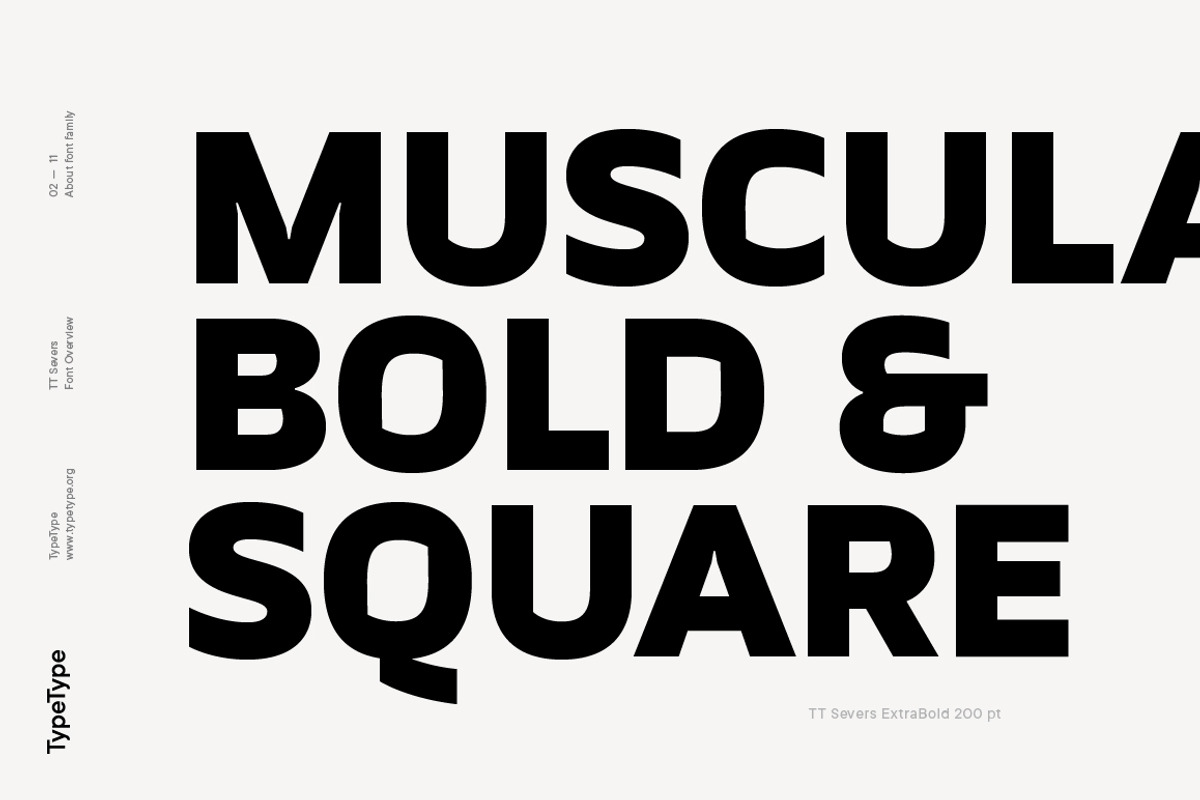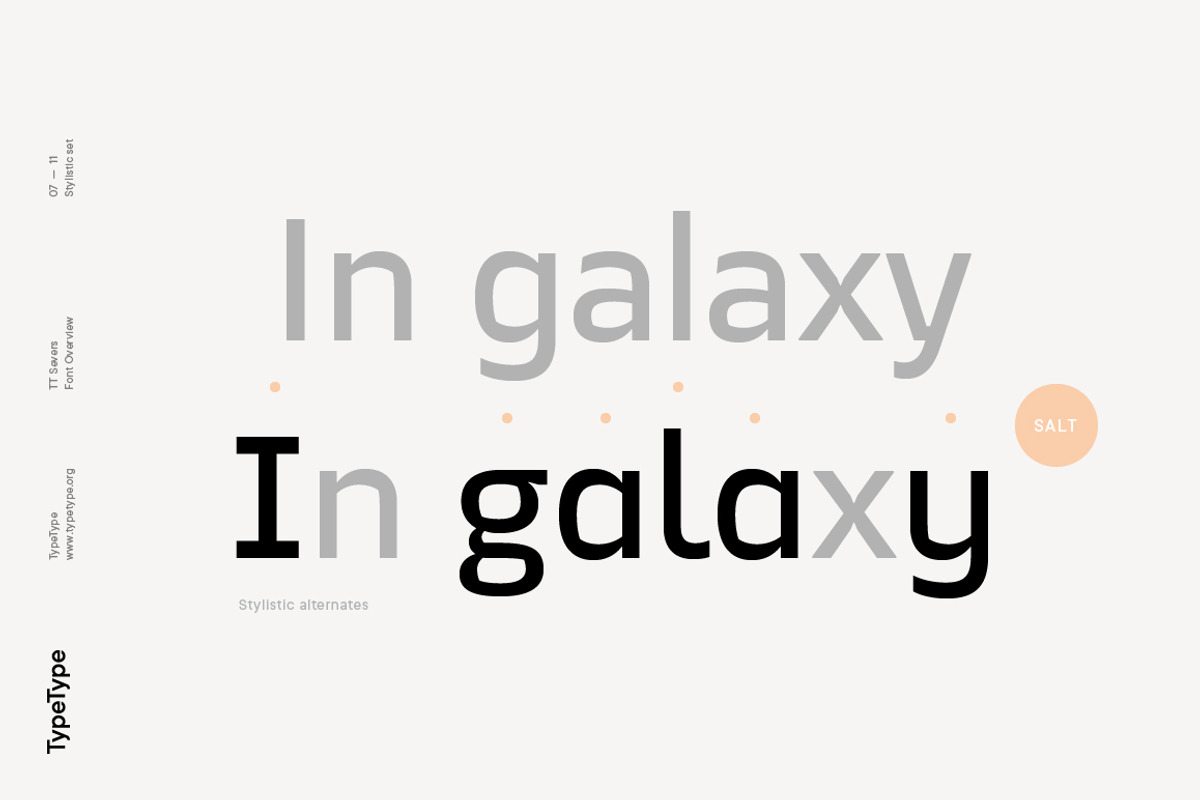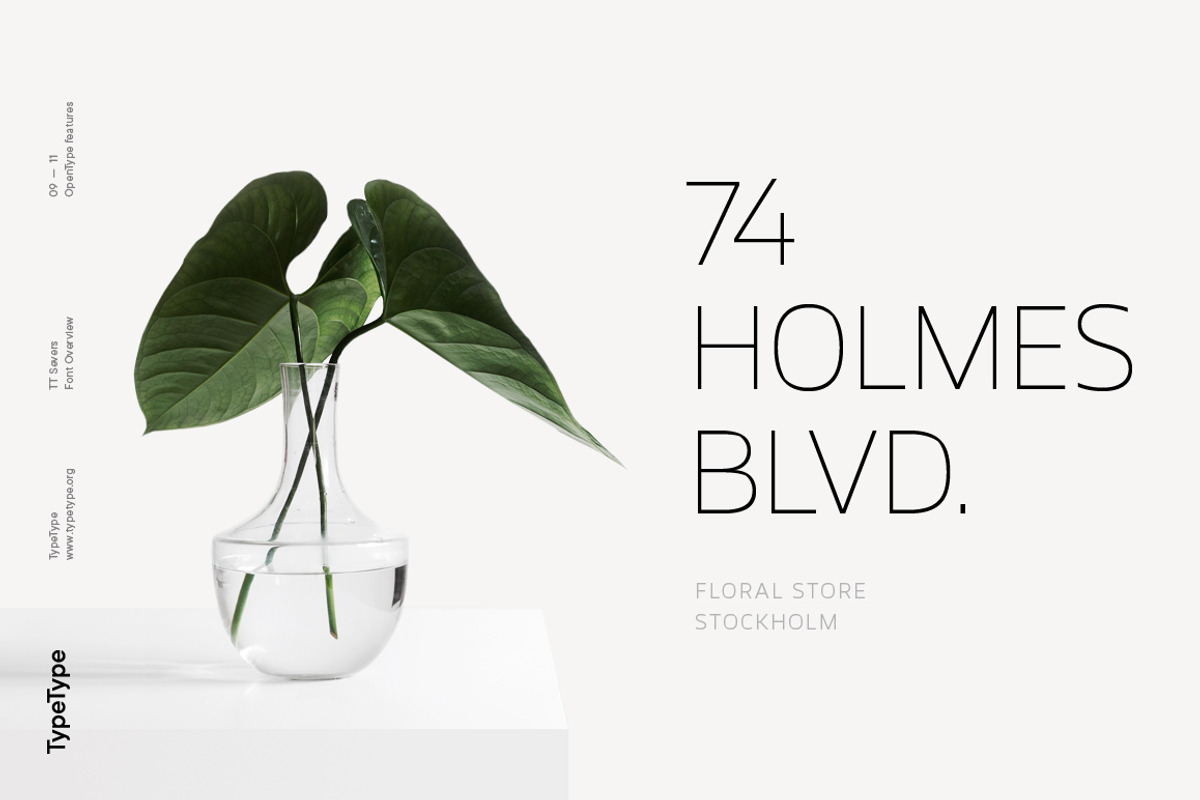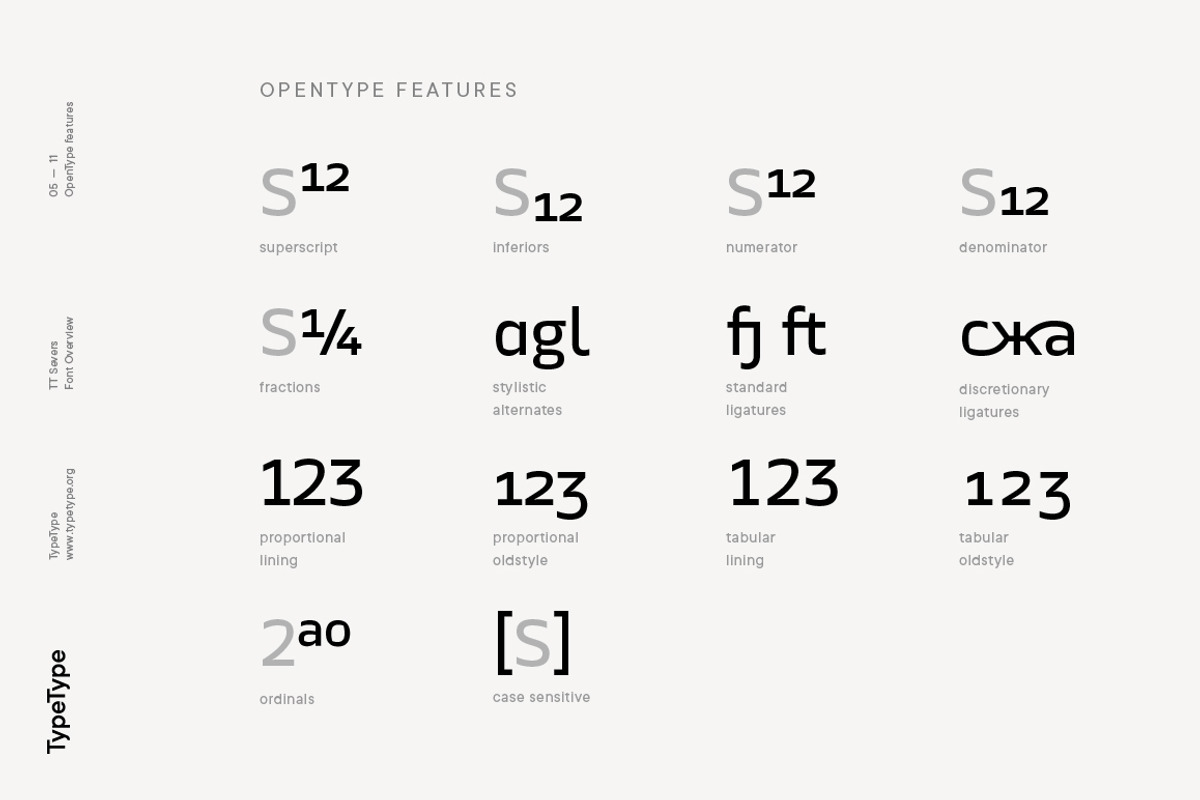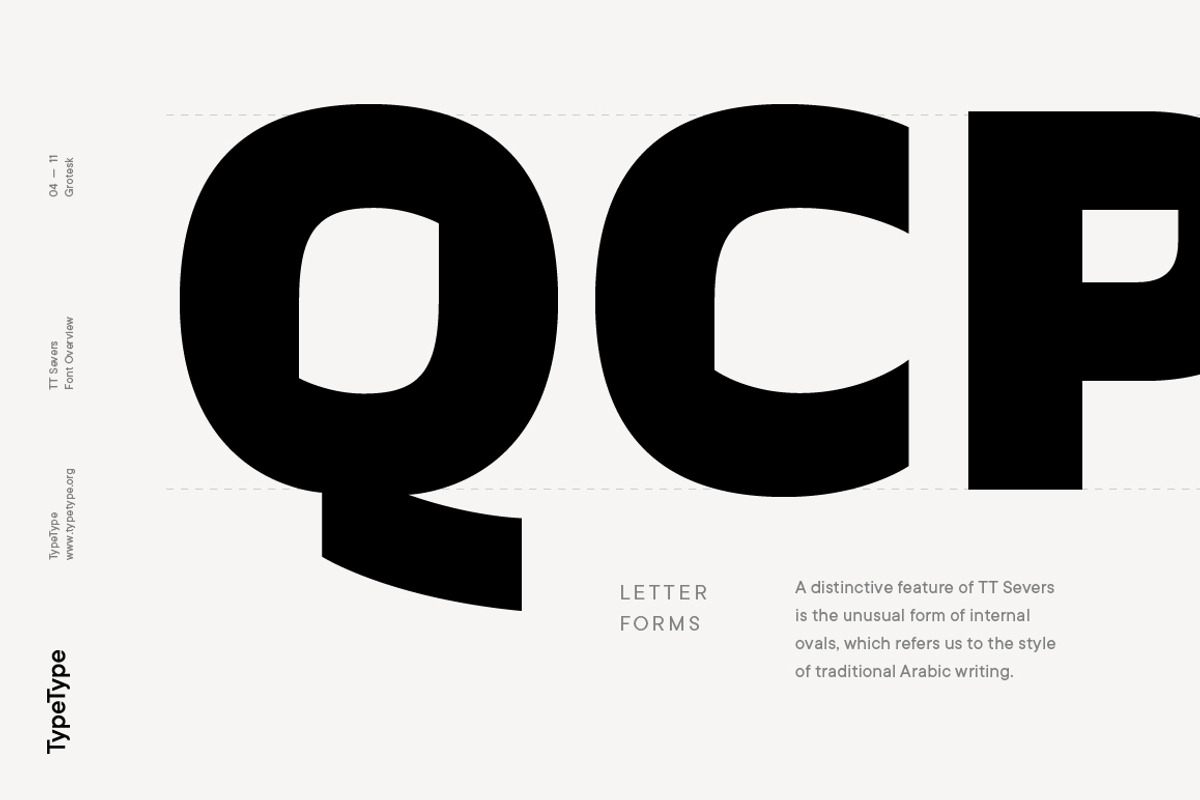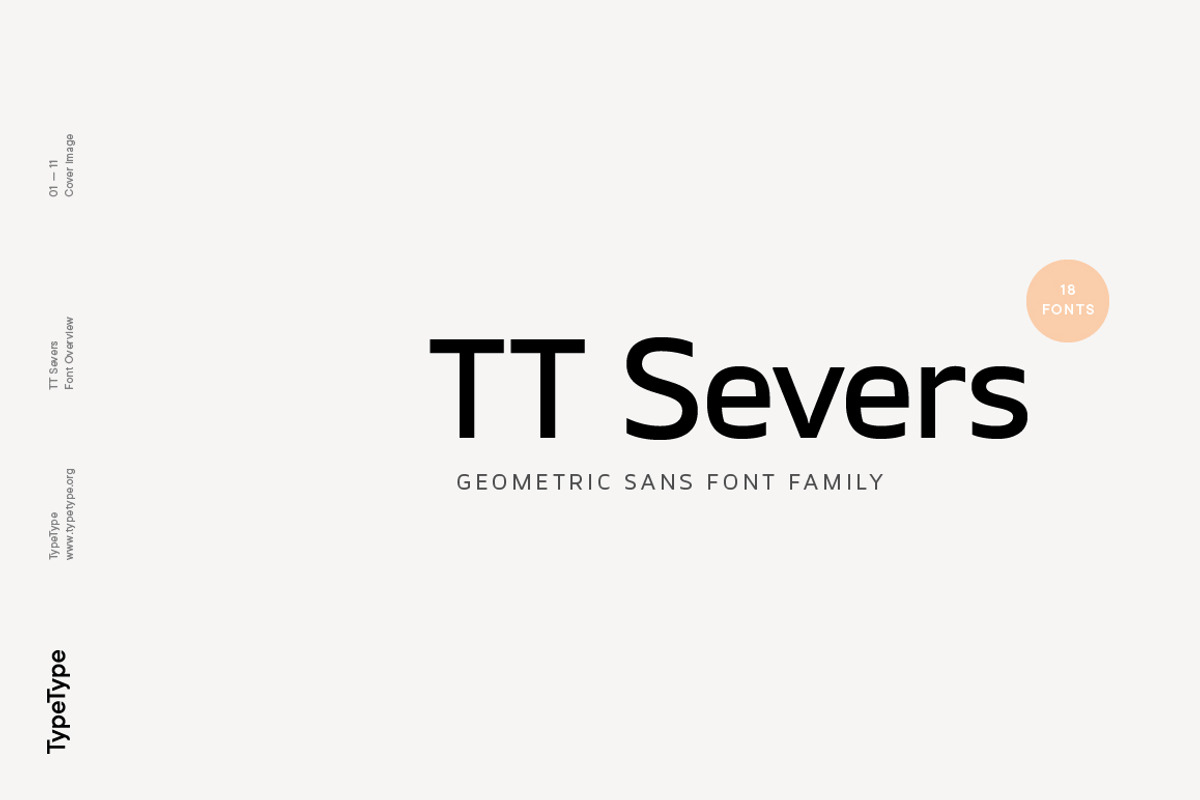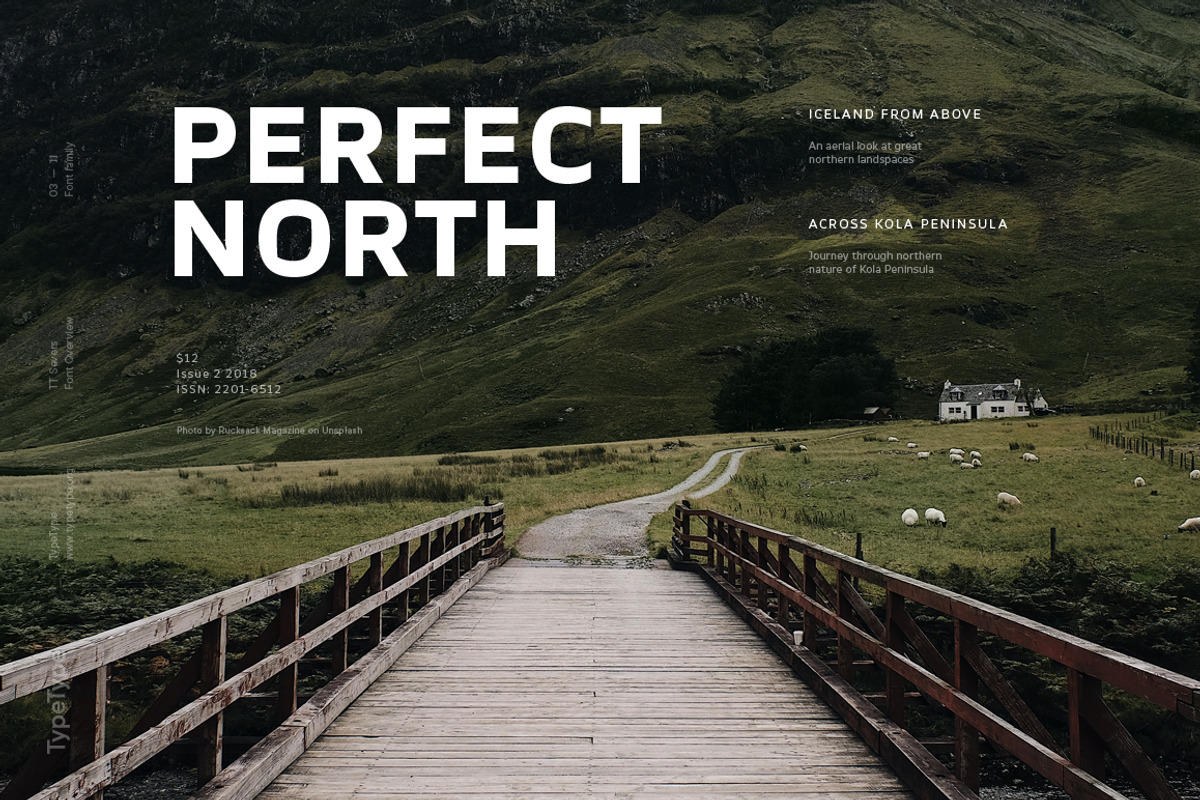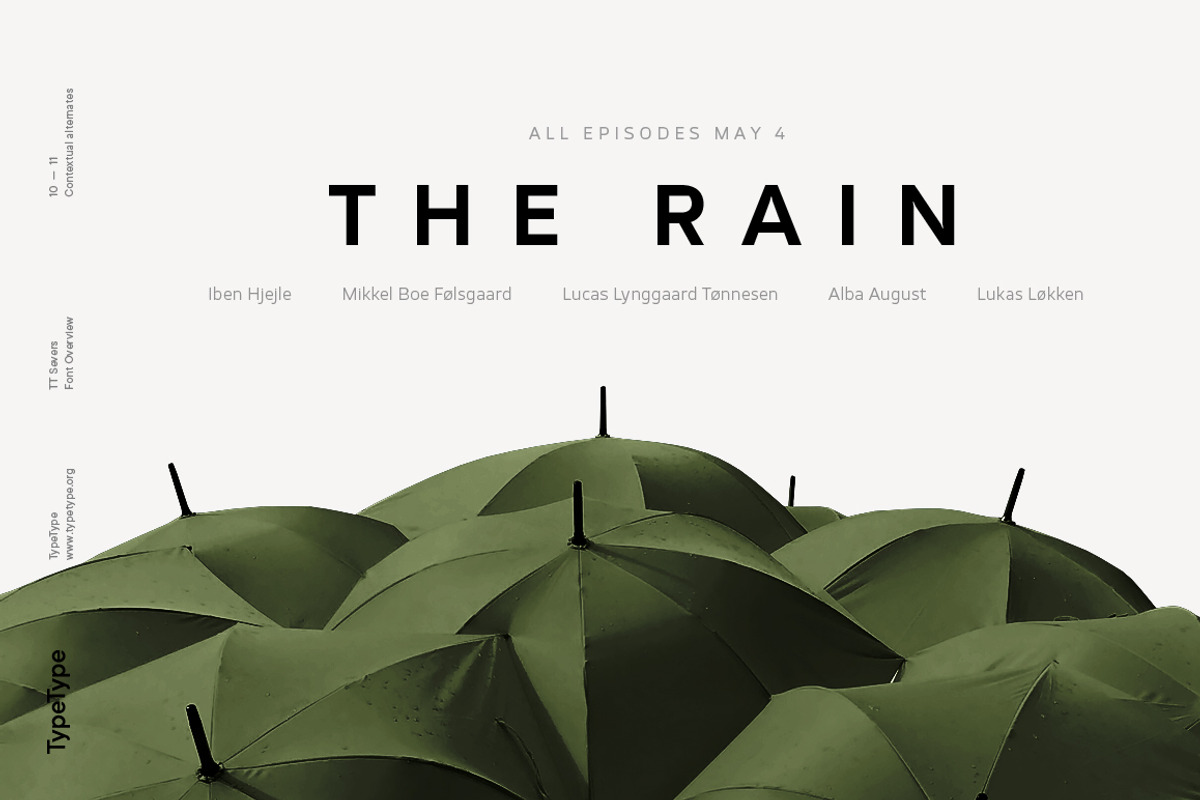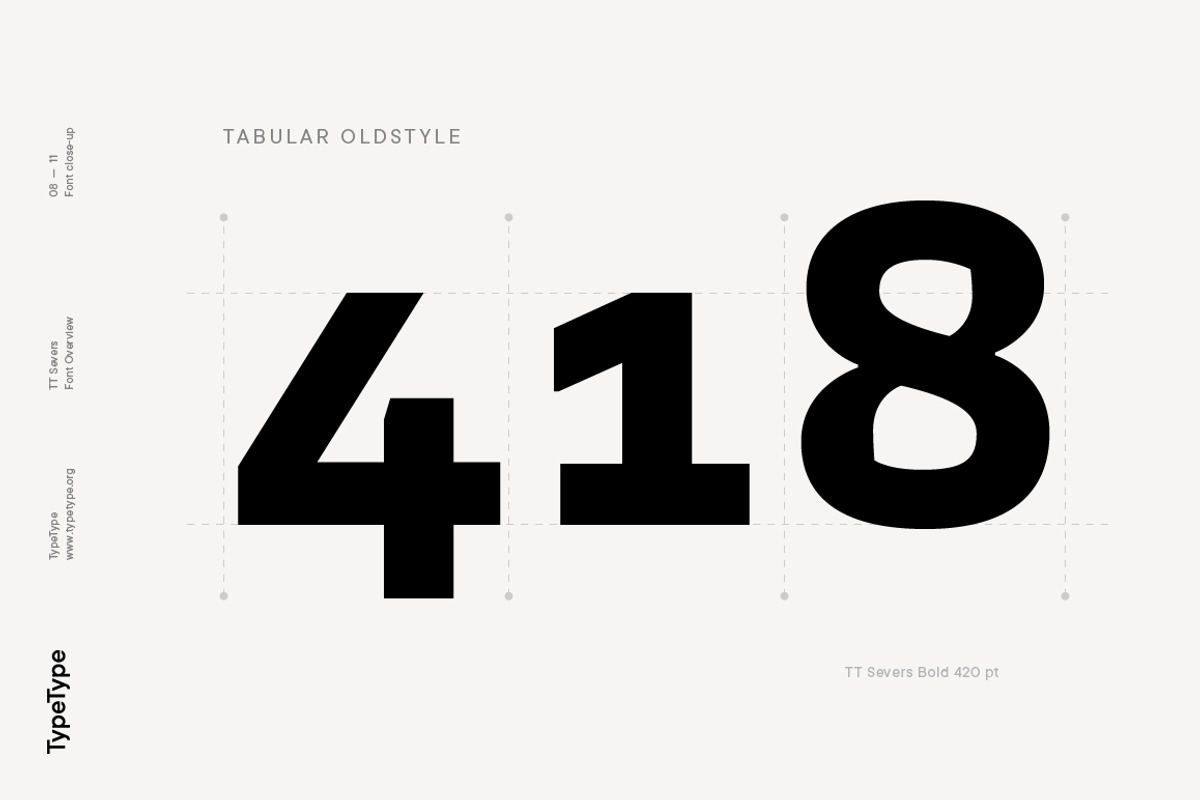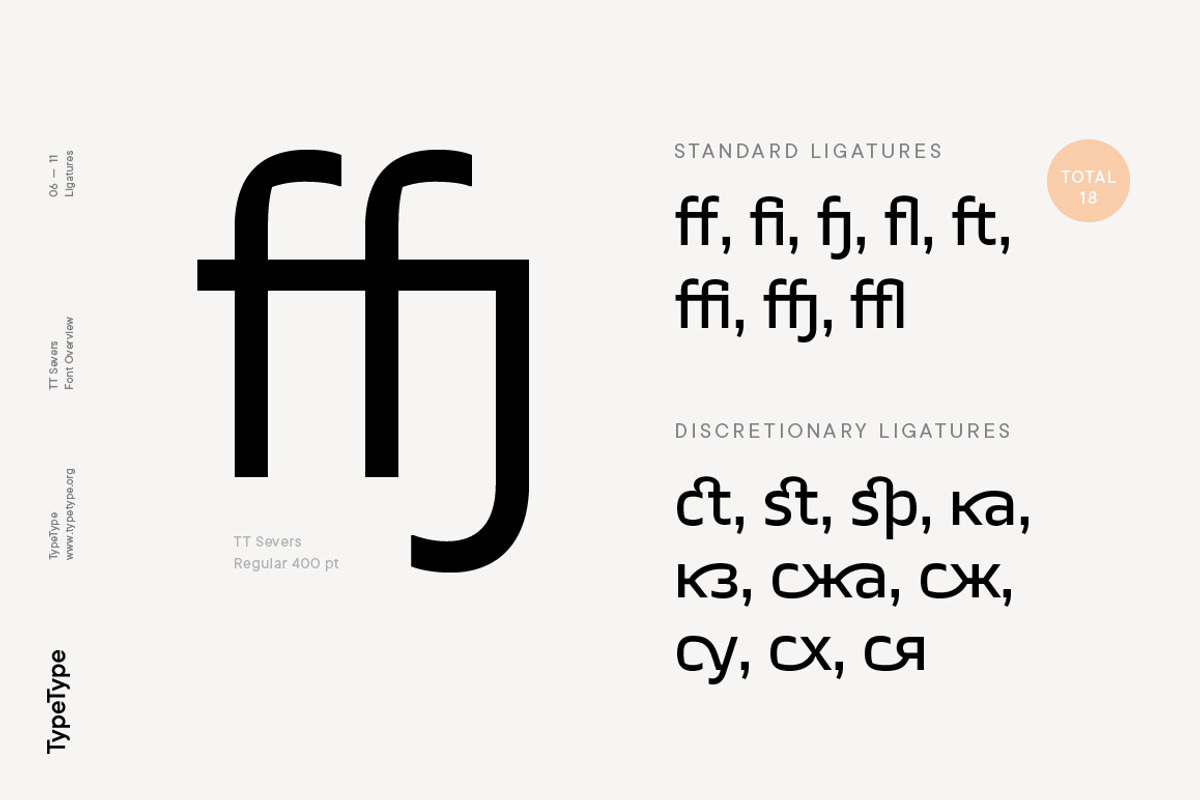
TT Severs
TT Severs is a geometric grotesque with emphasized elements of internal brackets.
- TT Severs—9 weights & 9 italics
- 550+ glyphs for each typeface
- Supports 160 languages (incl. Cyrillic)*
- OpenType features, including Ligatures and Stylistic Alternates**
A distinctive feature of TT Severs is the unusual form of internal ovals, which refers us to the style of traditional Arabic writing. TT Severs has a strong character and is great for use in high tech (IT), the web, in robotics, computer games, and sports.
TT Severs is a 2-in-1 font family. In a large body size, it works great as a display font, creating a distinctive character for logos and headings. At the same time, when TT Severs is used in a small body size or in large text arrays, the font’s peculiarities of bracket construction fade, and it perfectly functions as a text font, thanks to both the low contrast between vertical and horizontal strokes and the detailed logic of interaction of black and white letter elements.
The font family TT Severs includes 18 fonts, each of which consists of 558 glyphs. The family has standard and discrete ligatures, which include experimental ligatures for the Cyrillic alphabet. In addition, TT Severs can be made a little more humanist—it is enough to turn on stylistic alternates, and due to them, the font takes the form of a humanist grotesque, which refers us to traditional broad nib writing. As part of the font family, you will also find old-style figures and a large number of OT features such as case, ordn, sups, sinf, dnom, numr, onum, tnum, pnum, liga, dlig, salt (ss01), frac.